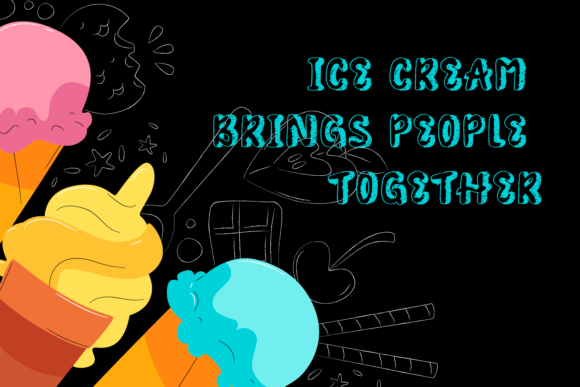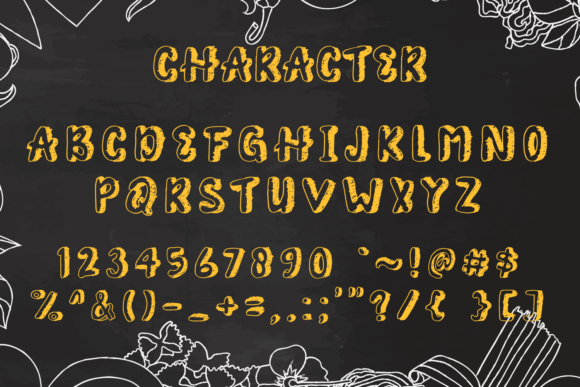
Introducing Brush Monday Font: Add a Personal Touch to Your Designs
Are you tired of using the same old fonts in your designs? Do you want to add a personal and realistic feel to your projects? Look no further than Brush Monday Font, a cool, unique, and playful brushed display font that’s perfect for designers and crafters alike.
What is Brush Monday Font?
Brush Monday Font is a carefully crafted font that mimics the look and feel of hand-brushed letters. Its authentic, rough, and imperfect texture gives it a charming and distinctive character that’s sure to make your designs stand out. Whether you’re working on a logo, poster, or social media graphic, Brush Monday Font is the perfect choice for adding a touch of personality and whimsy.
Key Features of Brush Monday Font
- Unique and Playful Design: Brush Monday Font boasts a one-of-a-kind design that’s both fun and eye-catching. Its irregular strokes and uneven texture give it a delightfully handmade feel that’s perfect for creative projects.
- Authentic Look and Feel: Unlike other fonts that try to mimic a brushed look, Brush Monday Font has a genuinely authentic feel that’s sure to fool even the most discerning eye.
- Highly Versatile: Brush Monday Font is perfect for a wide range of design applications, from logos and posters to social media graphics and craft projects.
- Easily Readable: Despite its irregular texture, Brush Monday Font is surprisingly easy to read, making it perfect for headlines, titles, and short paragraphs of text.
Who is Brush Monday Font for?
Brush Monday Font is perfect for designers, crafters, and DIY enthusiasts who want to add a personal touch to their projects. Here are a few examples of who might benefit from using Brush Monday Font:
- Graphic Designers: Brush Monday Font is a great addition to any graphic designer’s toolkit. Its unique and playful design makes it perfect for logos, posters, and social media graphics.
- Crafters and DIY Enthusiasts: If you love crafting, scrapbooking, or making DIY projects, Brush Monday Font is a great way to add a personal touch to your creations.
- Small Business Owners: If you’re looking for a way to make your brand stand out, Brush Monday Font is a great choice for creating eye-catching headlines and titles.
How to Use Brush Monday Font
Using Brush Monday Font is easy. Here are a few tips to get you started:
- Pair it with a Simple Font: Brush Monday Font works best when paired with a simple, easy-to-read font. Try pairing it with a clean sans-serif font for a striking contrast.
- Use it for Headlines and Titles: Brush Monday Font is perfect for headlines and titles. Its unique design makes it a great way to grab attention and add visual interest.
- Experiment with Colors: Brush Monday Font looks great in a wide range of colors. Experiment with different shades and combinations to find the perfect look for your project.
Brush Monday Font is a unique and playful brushed display font that’s perfect for designers and crafters who want to add a personal touch to their projects. Its authentic look and feel, highly versatile design, and easily readable text make it a great choice for a wide range of design applications. Whether you’re working on a logo, poster, or social media graphic, Brush Monday Font is sure to make your designs stand out.